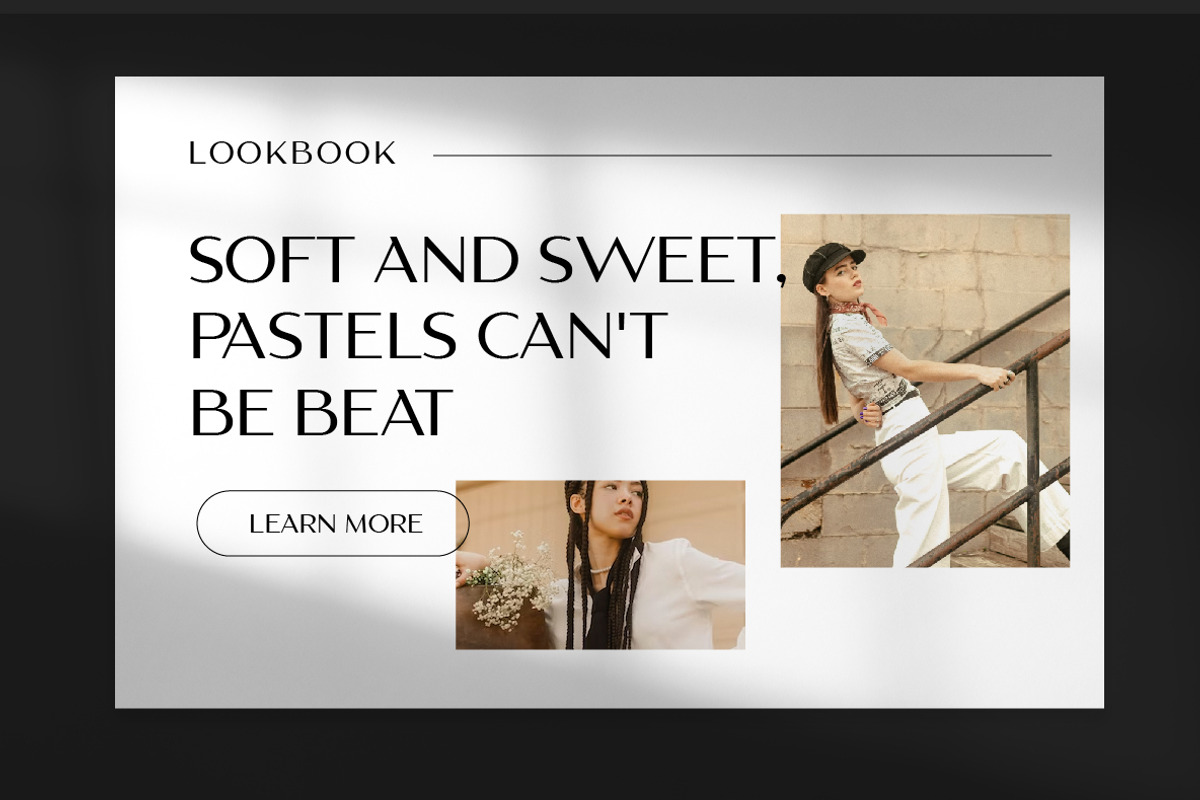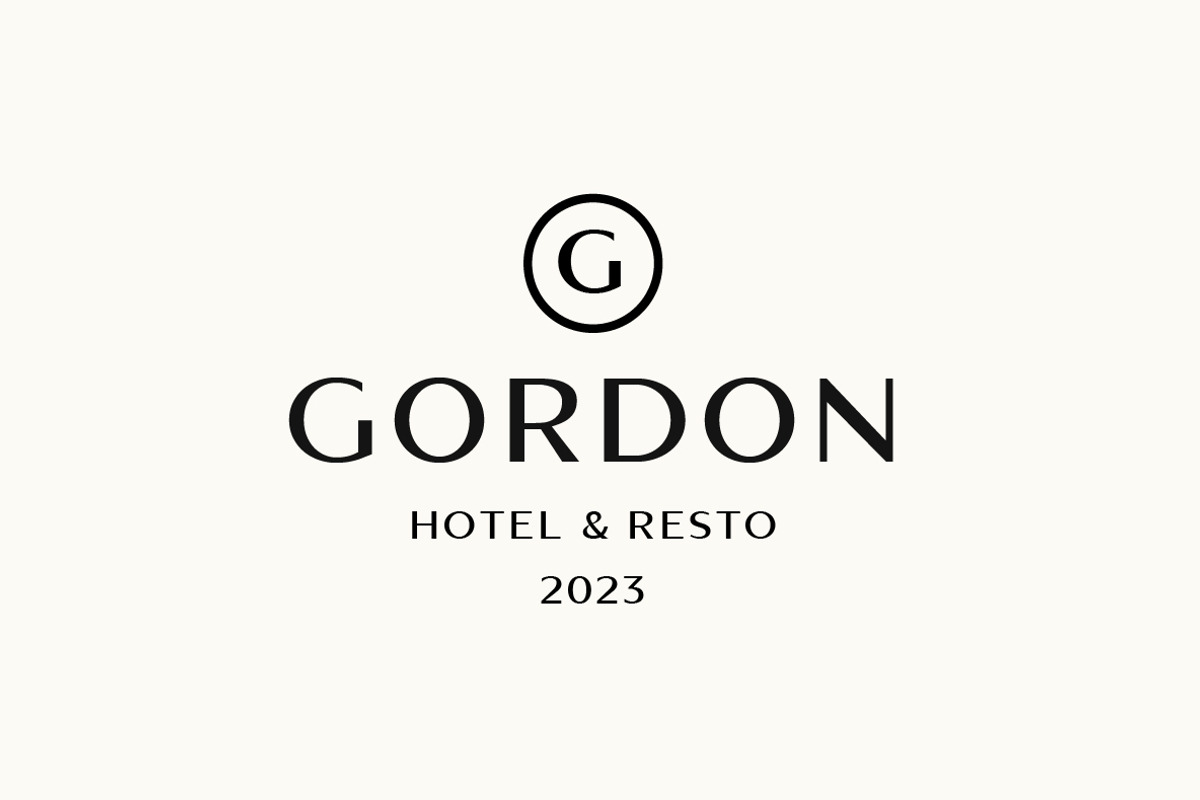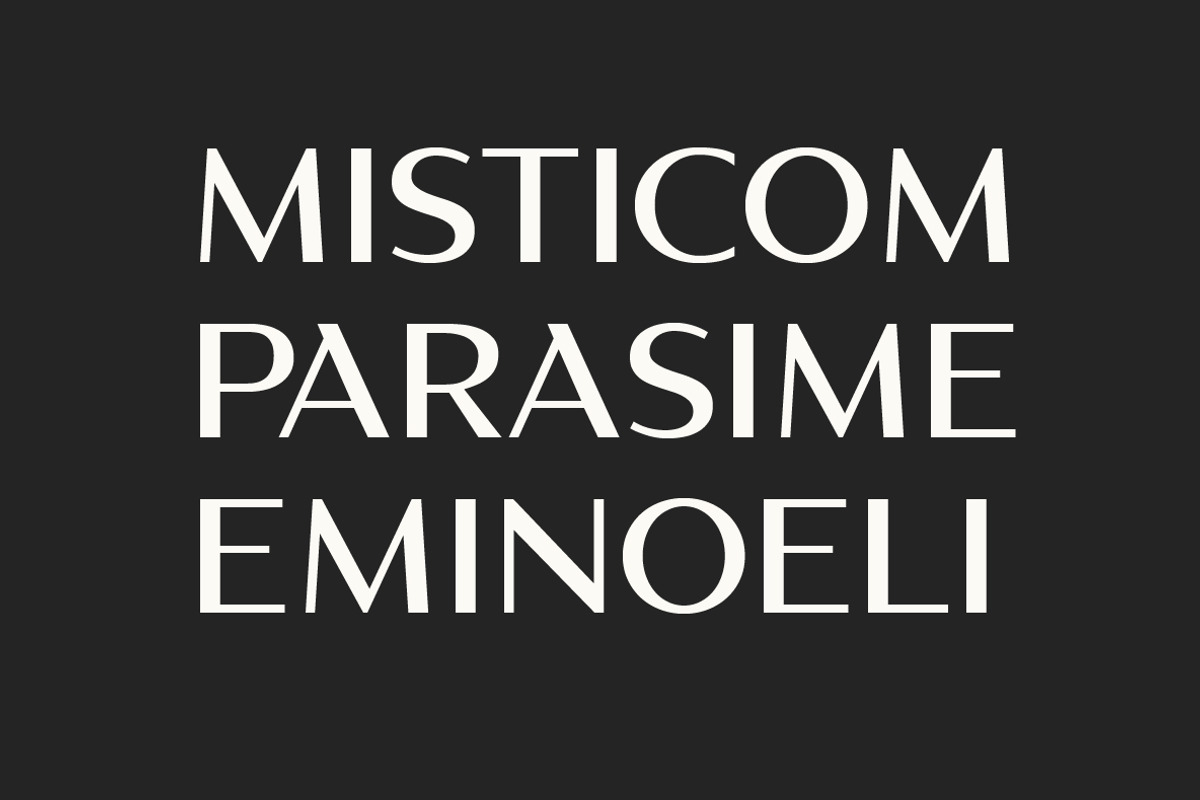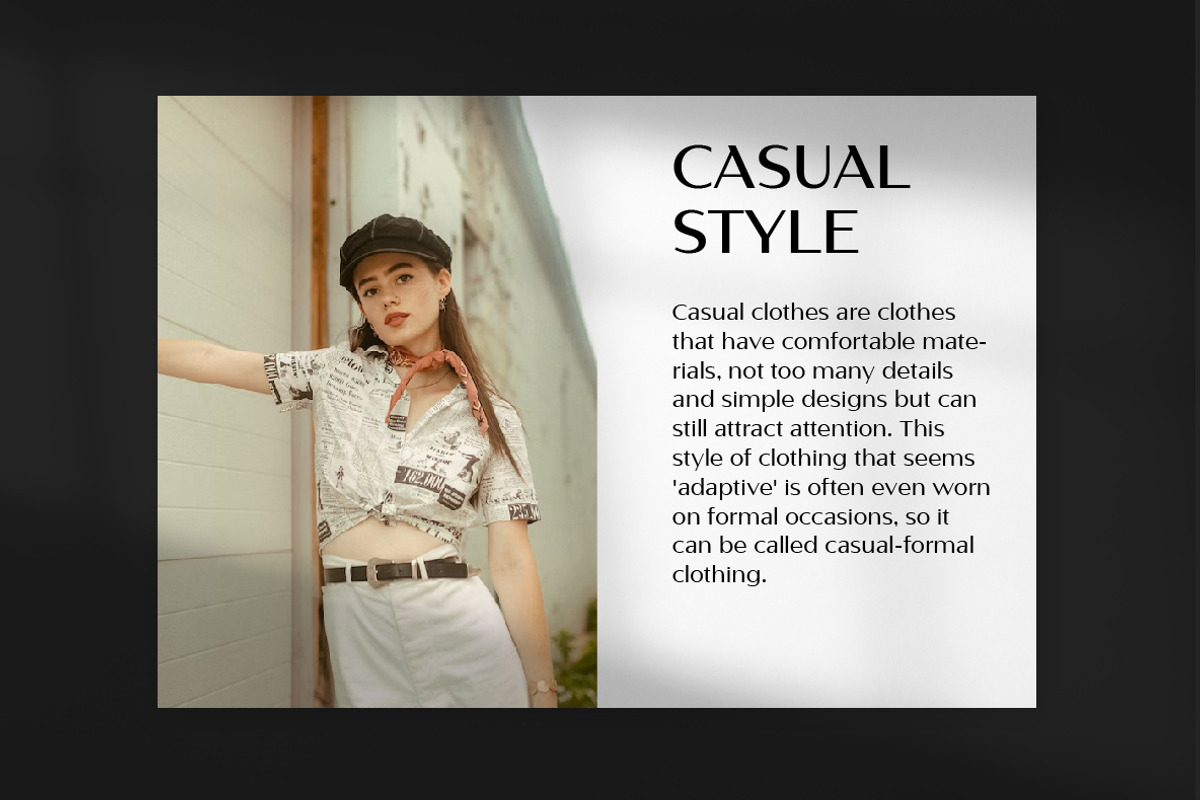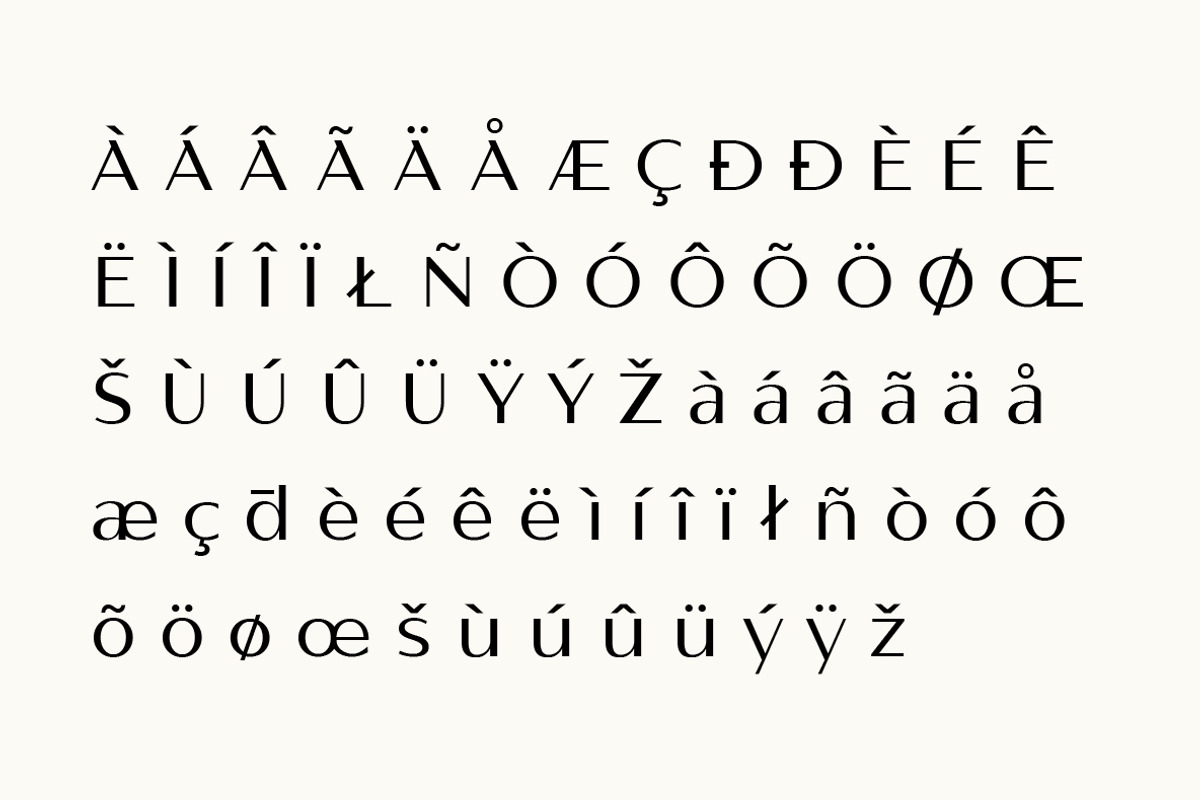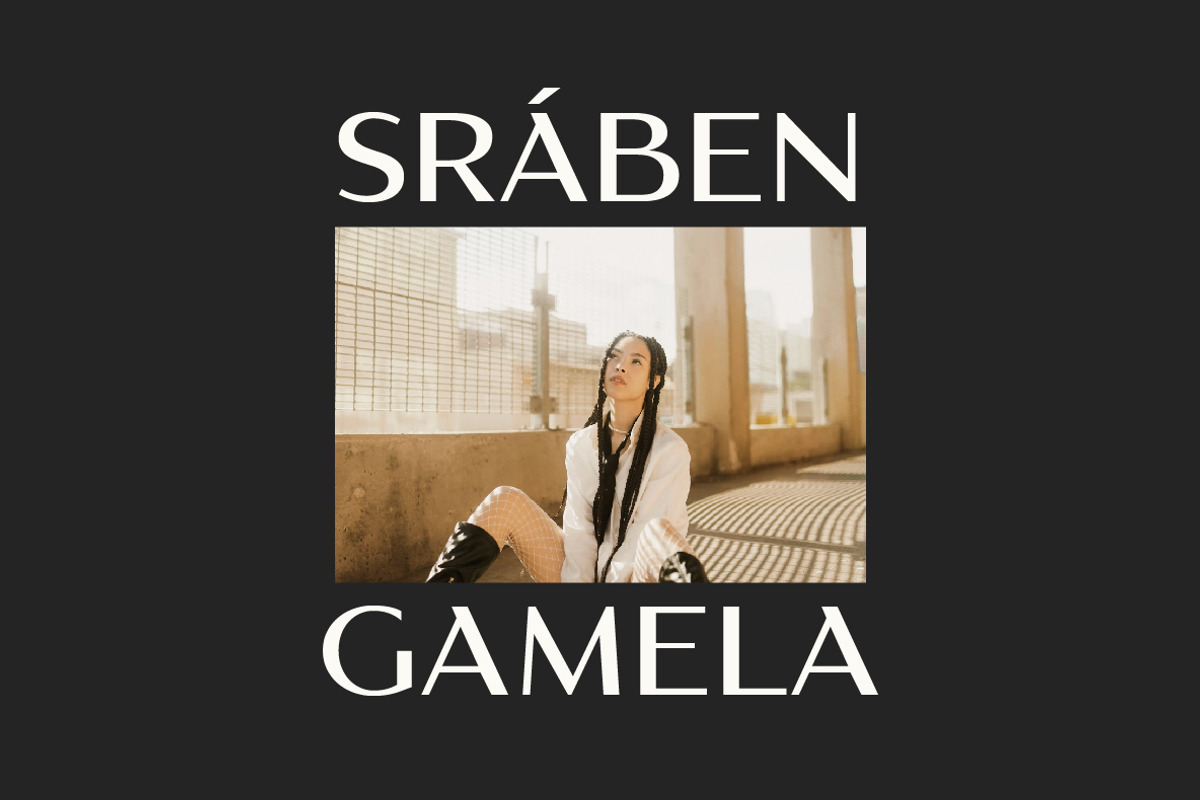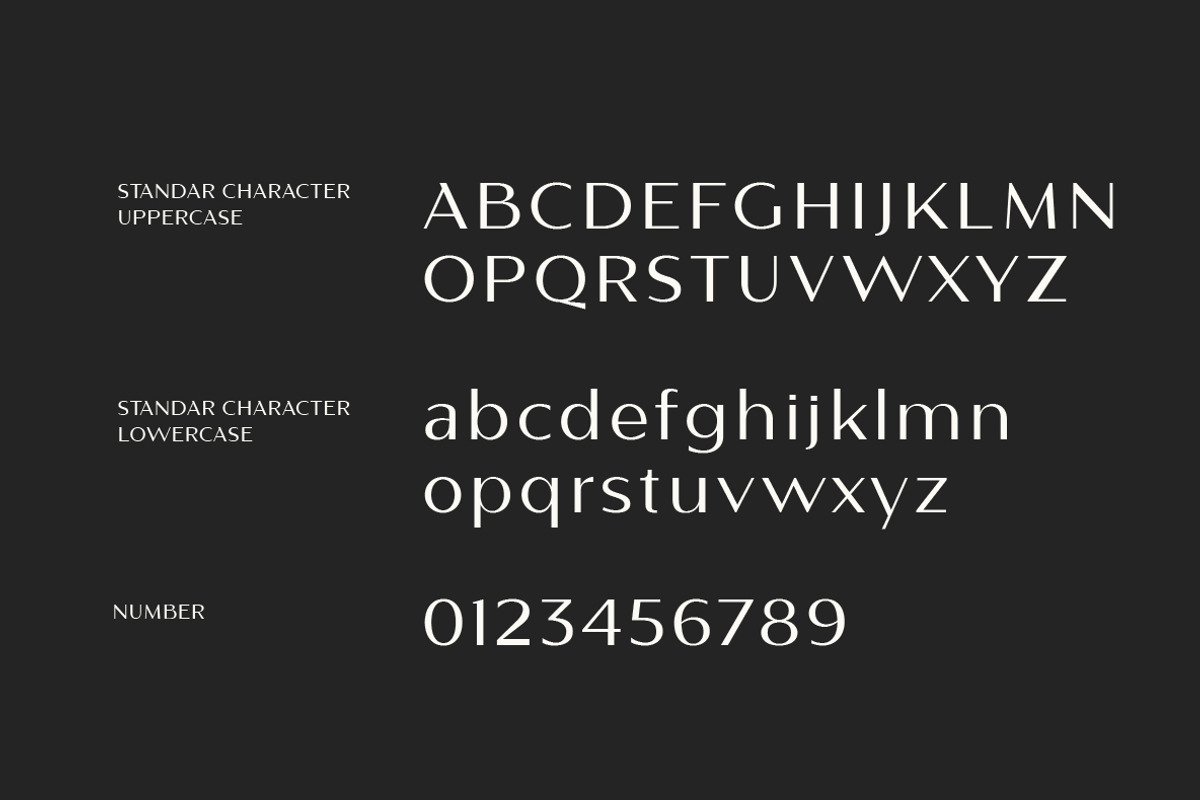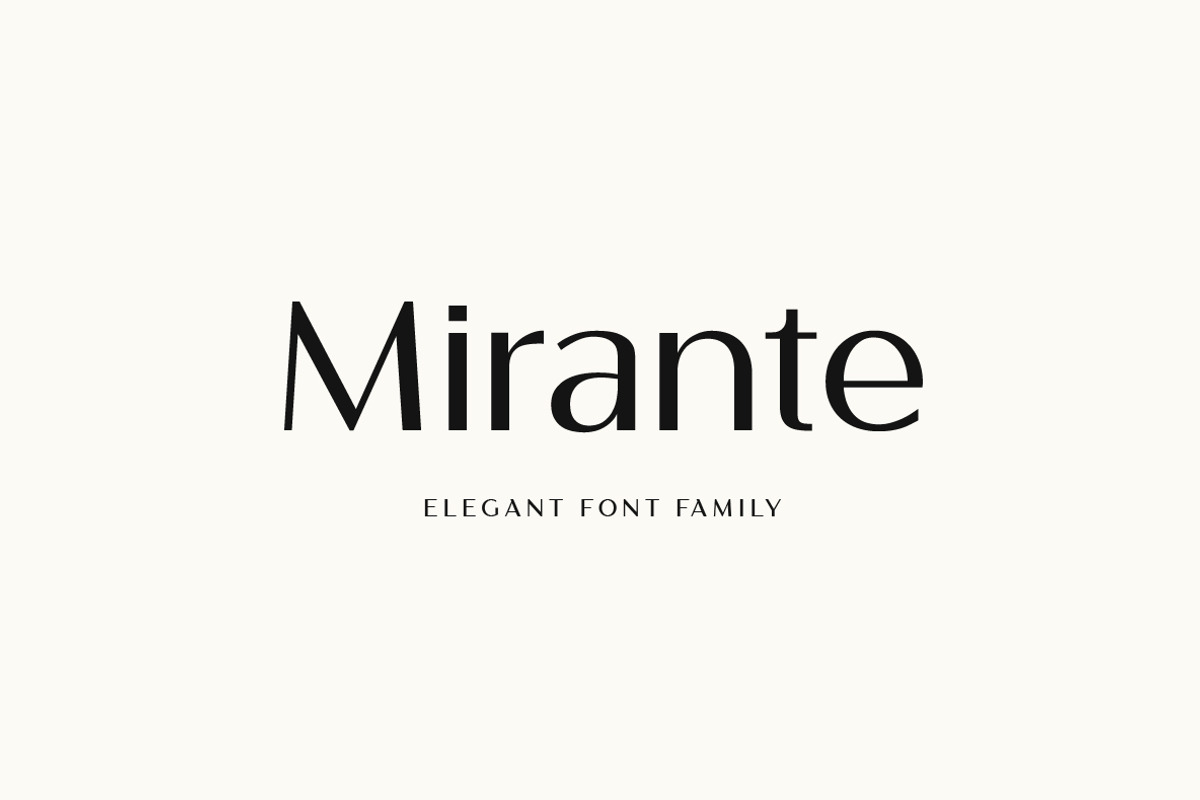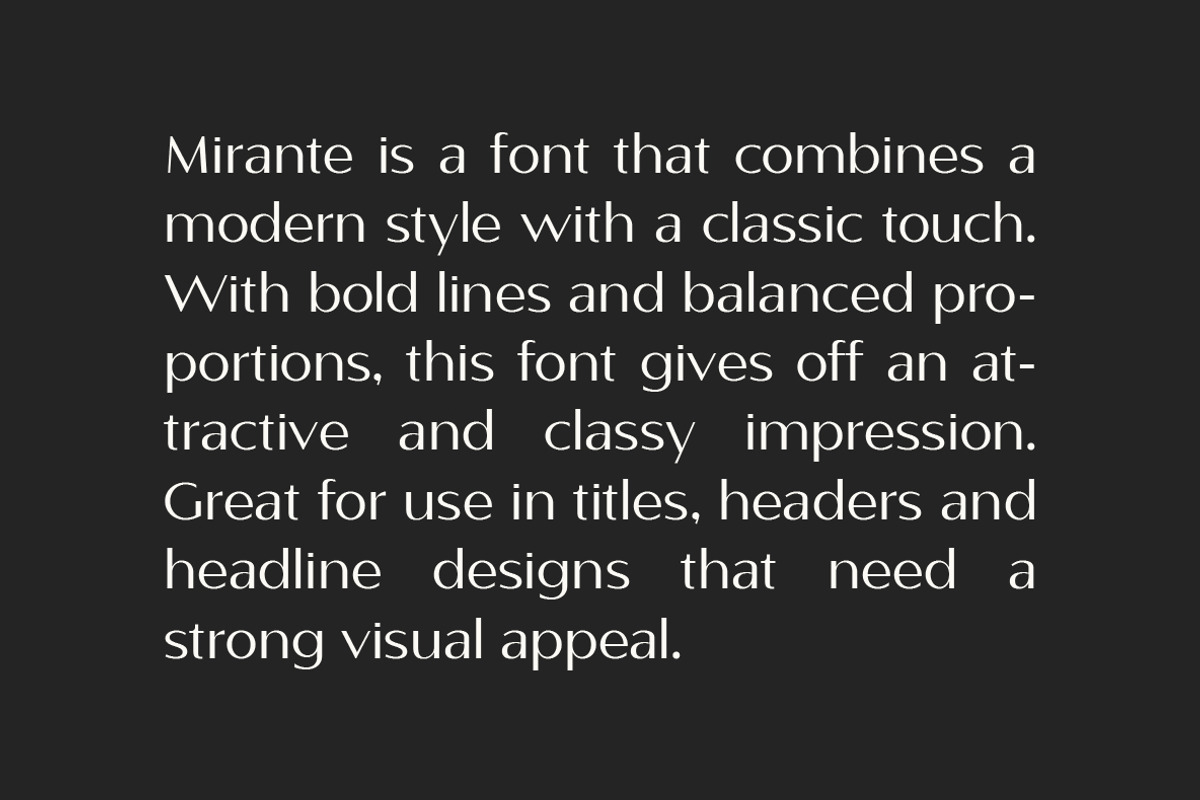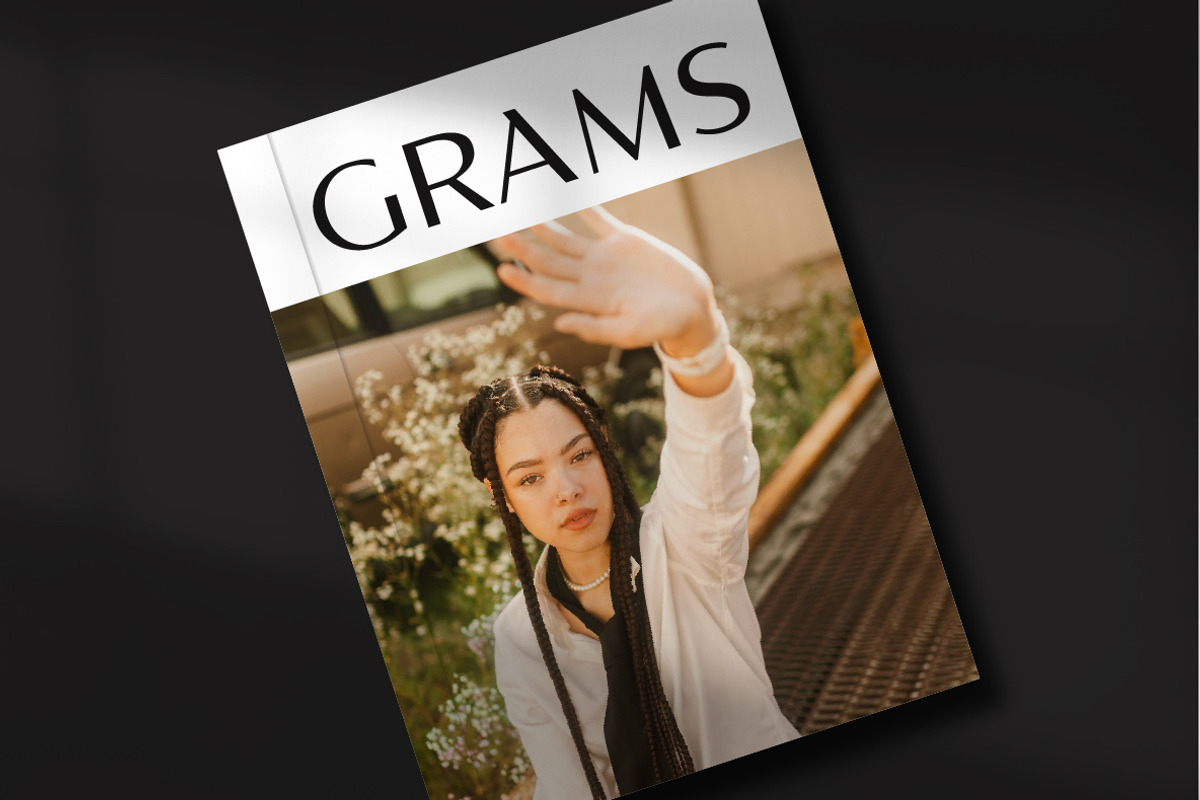
Mirante Elegant Font Family
The Mirante Sans Serif font family is the perfect embodiment of modern typographical elegance. With different font variations but still consistent in aesthetics, this font family offers great design flexibility. Each member of this font family has a distinctive touch that combines simplicity with elegance, creating an appealing visual harmony.
From a bold medium style to a bold Black style, each font variation in the Mirante Sans Serif family carries a unique character while adhering to the spirit of elegance. The smooth, clean lines in each letter create a clean, professional look, making this font family suitable for a variety of design projects from editorial design to corporate branding.
In layout, this font exhibits captivating consistency, making it the perfect choice for ensuring your message is conveyed with clarity and class. The Mirante Sans Serif Elegant Font Family is the unrivaled choice for anyone who wants an impressive combination of beauty and function in the world of modern typography.